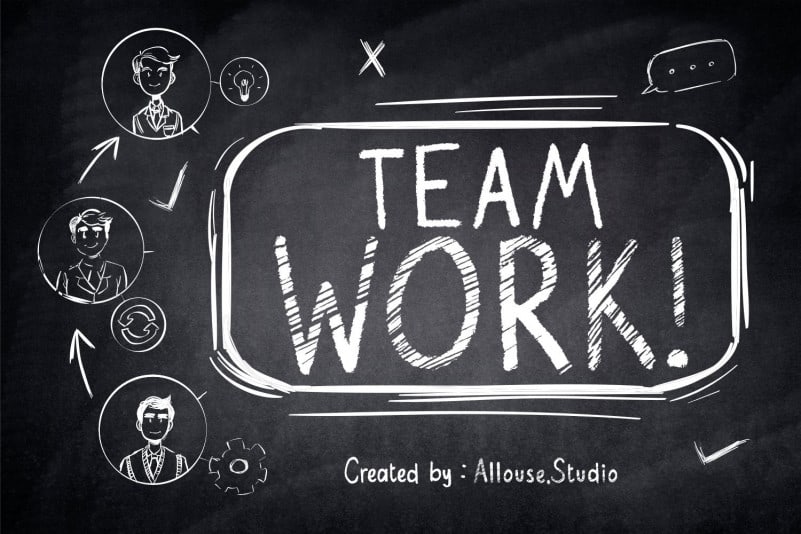
Orion Chalk Display Font
Orion Chalk Display Font is a Condensed Chalkboard typeface. It’s perfect for product packaging, branding project, megazine, social media, wedding, or just used to express words above the background.